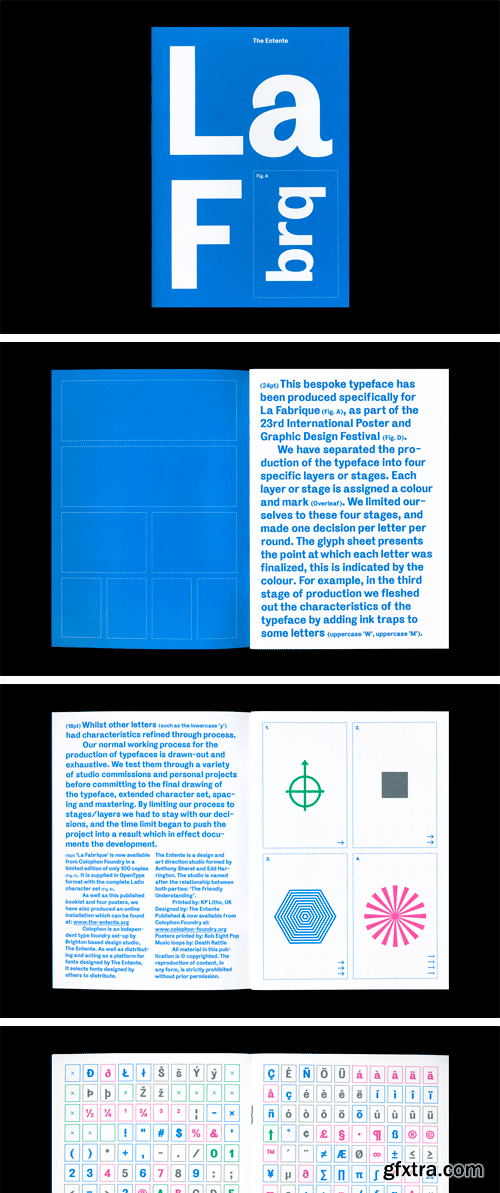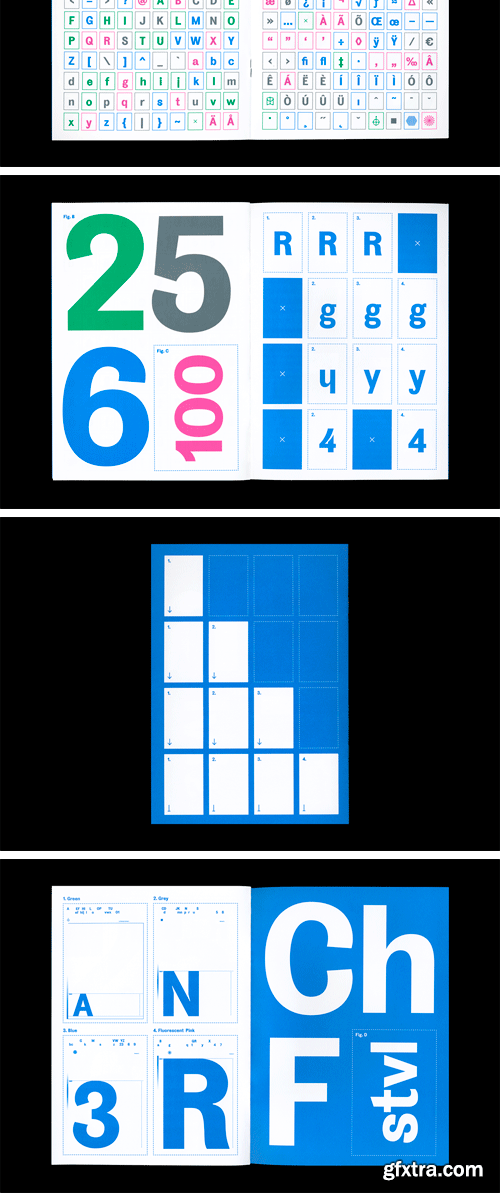
La Fabrique Font Family
Coinciding with the commission we created La Fabrique, a heavy sans-serif typeface. The process of production of drawing the typeface was separated in four distinct stages and the restricted decisions made into a visible path. This was documented via two mediums, a set of four A0 serigraph posters, and a small 12-page specimen. This restrictive iterative process, was used to visually document a normally ephemeral and invisible process. The result was shown at La Fabrique, Chaumont, France in 2012.